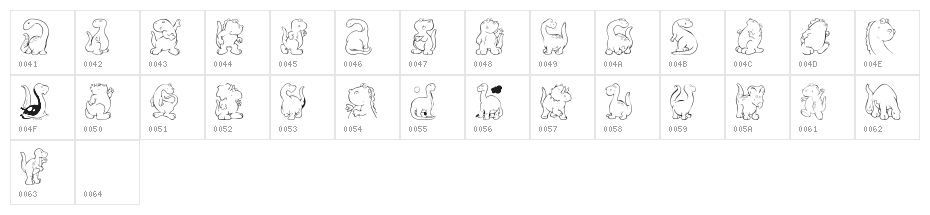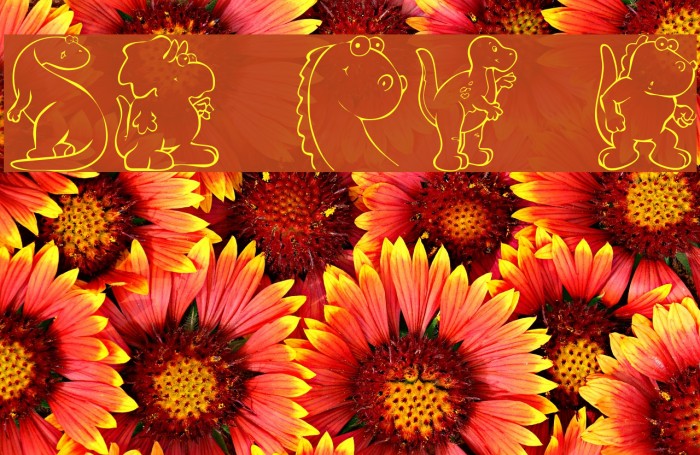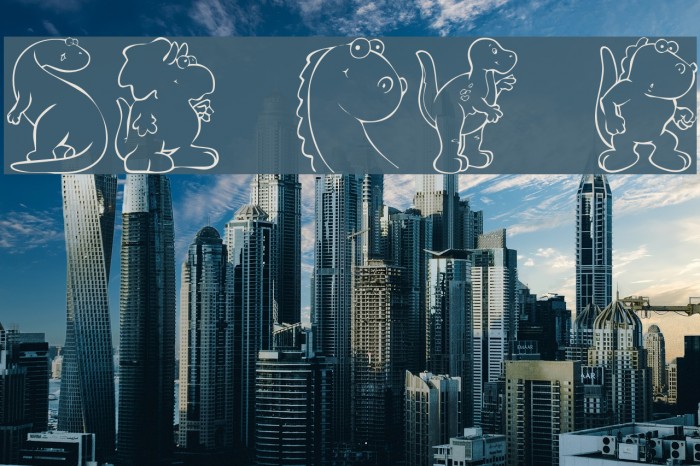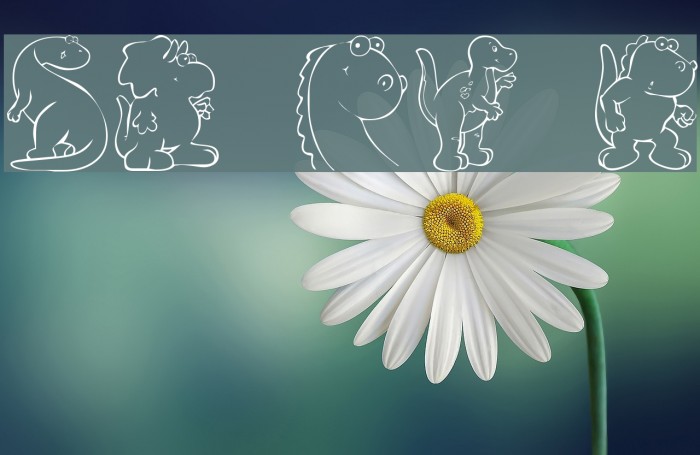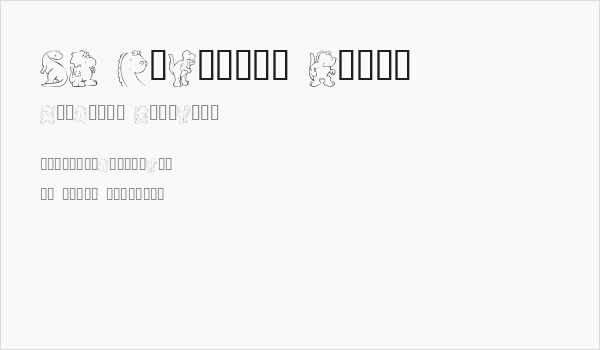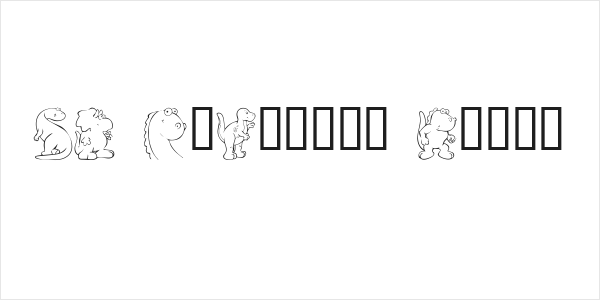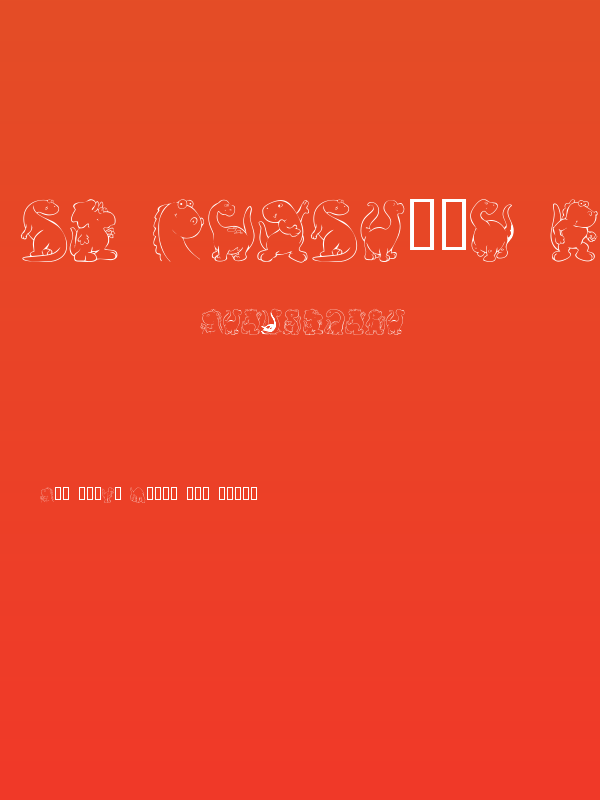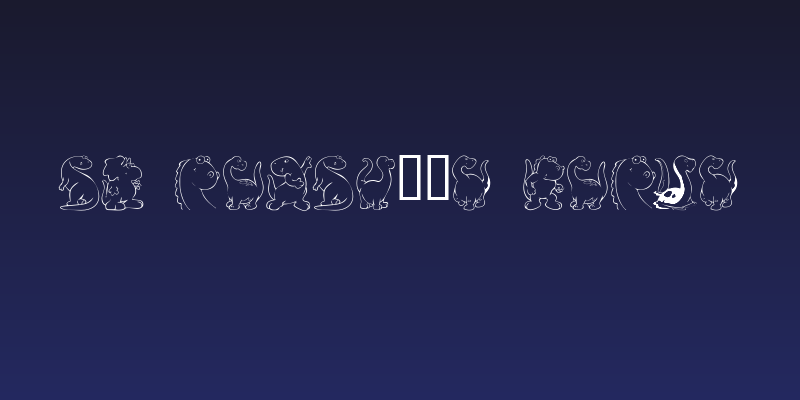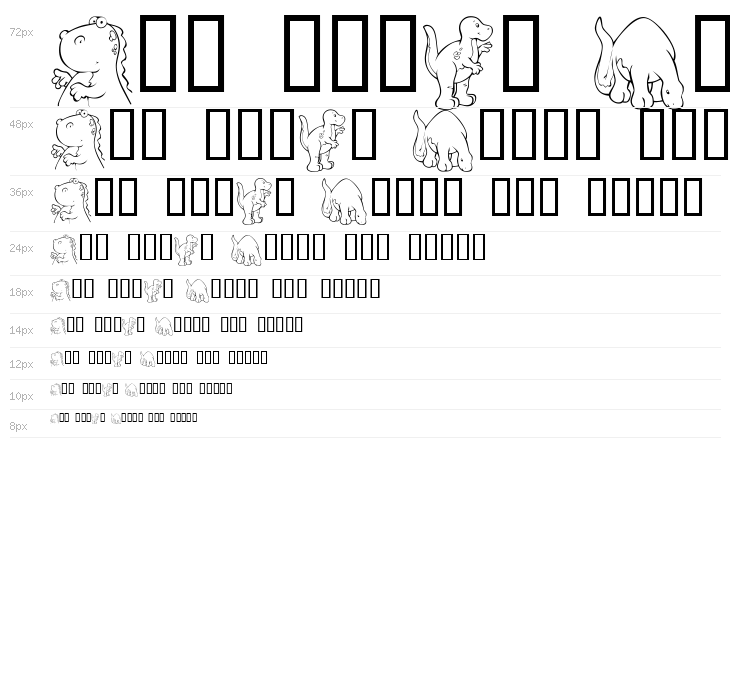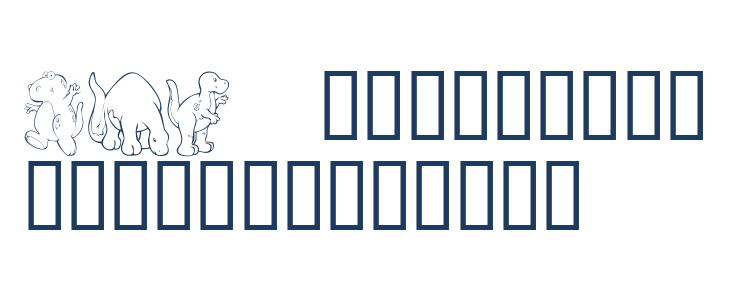
KR Nicky's Dinos Font
KR Nicky's Dinos Description
This playful and whimsical font features a series of charming dinosaur illustrations, each representing a different character. The dinosaurs are depicted in various poses and expressions, adding a sense of fun and creativity to the design. The font is highly decorative, making it ideal for projects that require a lighthearted and imaginative touch. The characters are not traditional letters but rather unique dinosaur shapes, which can be used to add a thematic element to children's materials, party invitations, or any project that benefits from a playful aesthetic.
| Use Case | Decorative elements, Thematic designs |
| Proposed Projects | Ideal for children's books, educational materials, party invitations, and playful branding. |